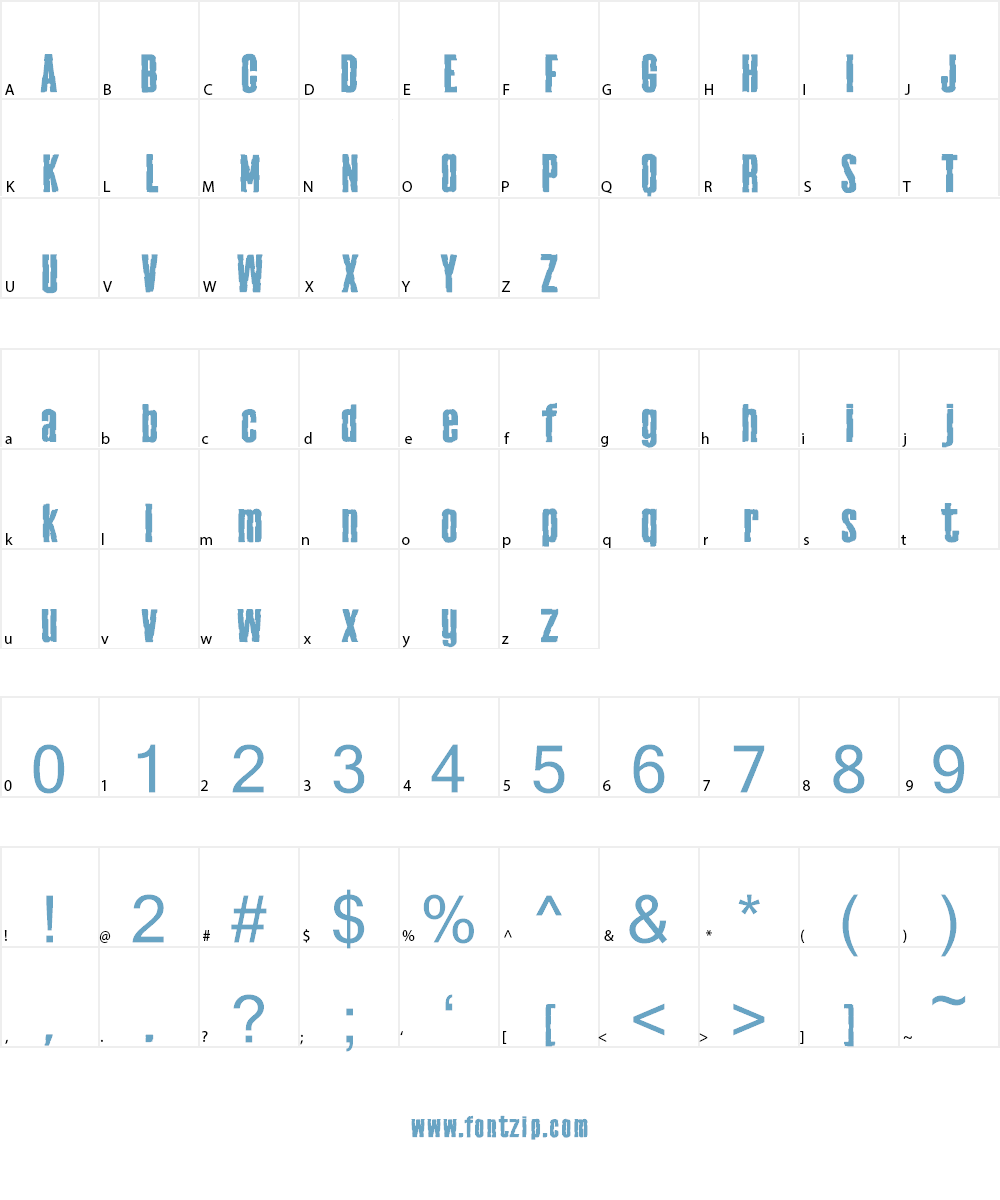
The Frankenstainer is a raw, bold, mysterious, unorthodox, call it what you want typeface.
It’s authentic and it’s also very unique. It was created with passion.
It’s main purpose is to grab the attention of viewers, customers and designers alike.